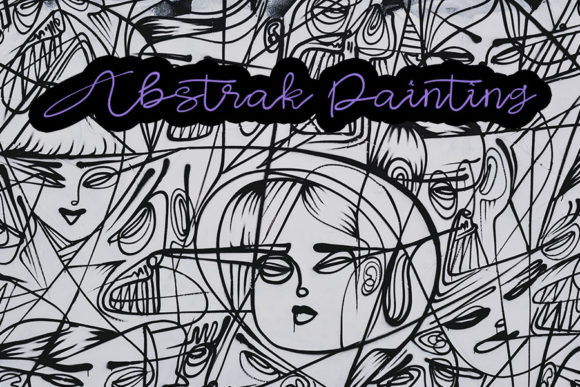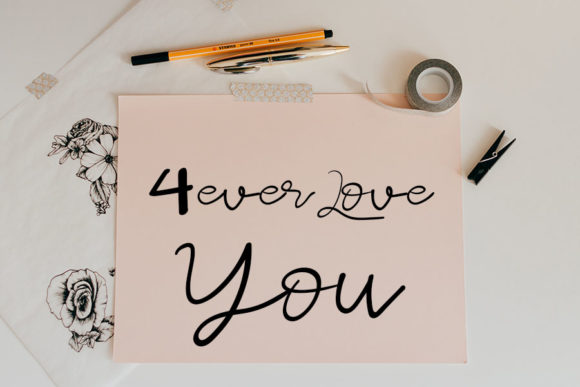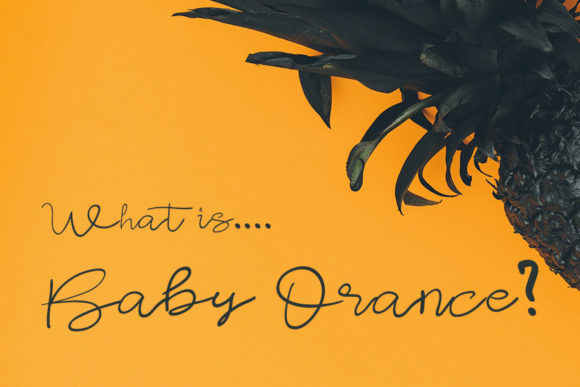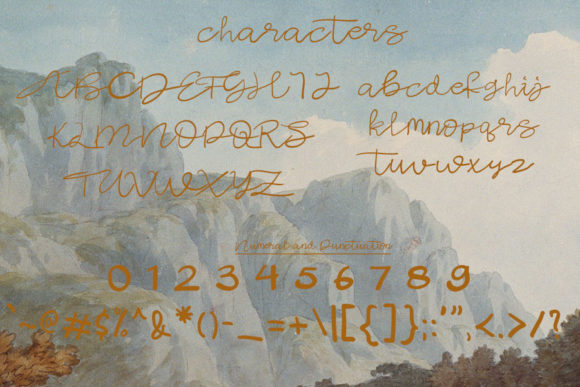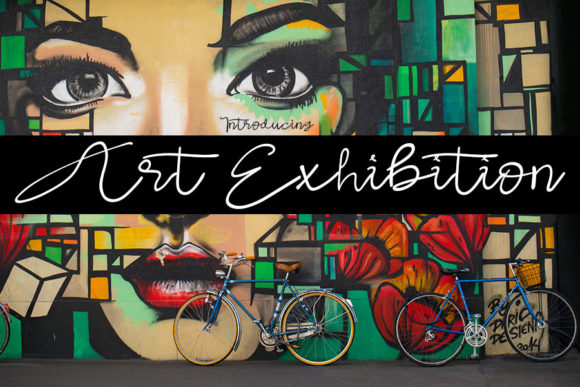
Introducing Art Exhibition Font: Elevate Your Creations with a Unique Handwritten Style
Are you a designer, crafter, or artist looking for a font that can take your creative projects to the next level? Look no further than the Art Exhibition font, an incredibly unique handwritten font that is expertly designed to make your creations look out of this world. With its distinctive and eye-catching style, this font has the potential to elevate your designs and take your creative ideas far further.
What Makes Art Exhibition Font So Special?
The Art Exhibition font is a one-of-a-kind handwritten font that is carefully crafted to add a touch of elegance and sophistication to any design project. Its unique style is characterized by flowing lines, intricate details, and a sense of whimsy that sets it apart from more traditional fonts. Whether you’re working on a logo, a poster, a website, or any other type of design project, the Art Exhibition font is sure to make a lasting impression.
Key Features of Art Exhibition Font
• Unique Handwritten Style: The Art Exhibition font boasts a distinctive handwritten style that is both elegant and eye-catching.
• Expertly Designed: This font is carefully crafted to ensure that it looks great in any design project, from logos and posters to websites and more.
• Versatile: The Art Exhibition font is perfect for a wide range of design projects, including branding, advertising, packaging, and more.
• Easily Readable: Despite its unique style, the Art Exhibition font is still easily readable, making it perfect for use in body text as well as headlines.
Tips for Getting the Most Out of Art Exhibition Font
• Experiment with Different Sizes and Colors: Don’t be afraid to try out different sizes and colors of the Art Exhibition font to see what works best for your design project.
• Pair it with Other Fonts: The Art Exhibition font pairs well with a variety of other fonts, so don’t be afraid to experiment with different font combinations.
• Use it to Add Emphasis: The Art Exhibition font is perfect for adding emphasis to certain words or phrases in your design project.
• Be Creative: Don’t be afraid to think outside the box and try out new and creative ways to use the Art Exhibition font in your design project.
Why Designers and Crafters Love Art Exhibition Font
Designers and crafters love the Art Exhibition font for a variety of reasons. Here are just a few:
• Unique Style: The Art Exhibition font offers a unique style that sets it apart from more traditional fonts.
• Easily Readable: Despite its unique style, the Art Exhibition font is still easily readable, making it perfect for use in a variety of design projects.
• Versatile: The Art Exhibition font is perfect for a wide range of design projects, from logos and posters to websites and more.
• High-Quality: The Art Exhibition font is expertly designed and of high-quality, making it a great addition to any design project.
In conclusion, the Art Exhibition font is an incredibly unique handwritten font that is expertly designed to make your creations look out of this world. With its distinctive and eye-catching style, this font has the potential to elevate your designs and take your creative ideas far further. Whether you’re a designer, crafter, or artist, the Art Exhibition font is a great choice for any design project. So why wait? Download the Art Exhibition font today and start taking your designs to the next level!